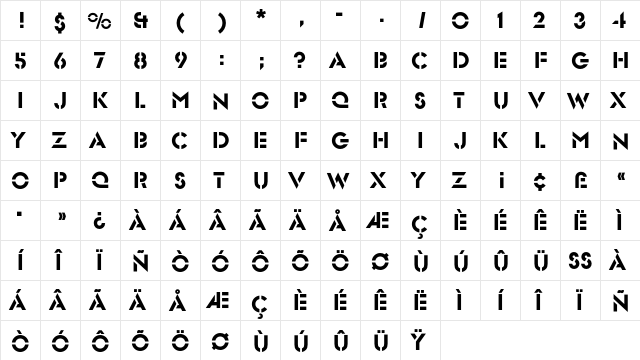
GlaserStencilEF Regular
Design Context for GlaserStencilEF Typeface
GlaserStencilEF borrows the utilitarian aesthetic of stencil lettering, with its characteristic cutaways and no-frills construction lending an industrial edge.
A strong choice for packaging that needs edge, warehouse aesthetics, and rough-and-ready visual identities.
Pro Tip: Use GlaserStencilEF at large sizes on packaging, posters, or apparel where the stencil cutaways read clearly. Avoid small sizes where those gaps become visual noise.